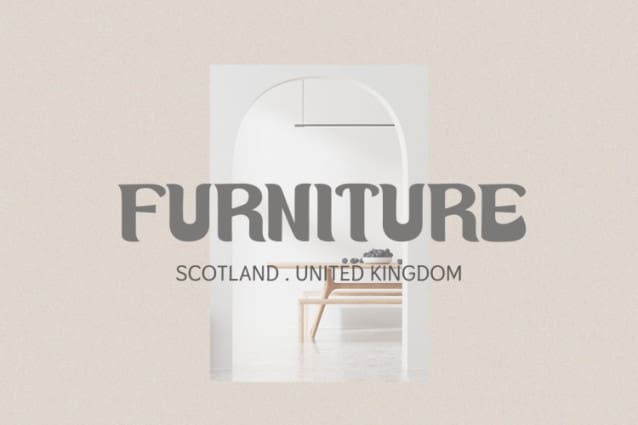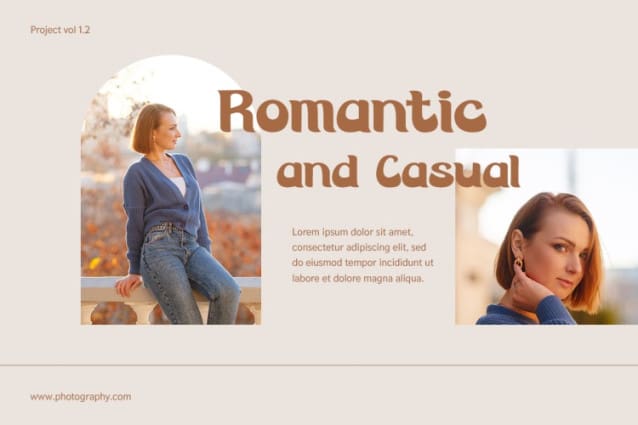
Scarlet Retro Font
Scarlet Retro Font a font that exudes style and luxury for your most sophisticated designs. With sleek and elegant characters, It is perfect for projects that demand a touch of glamour and sophistication. Each letter is crafted to perfection, radiating an aura of luxury and refinement. Whether it’s for logos, branding, invitations, or editorial designs, Scarlet Retro will elevate your creations to new heights of elegance and class. Transform your designs with SCARLET and make a statement that resonates with style and opulence